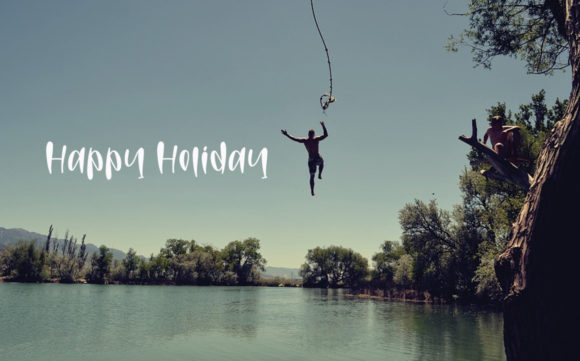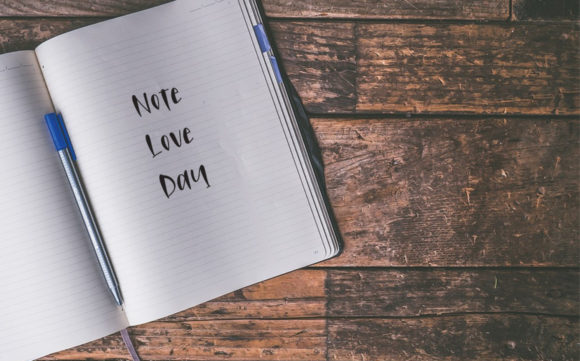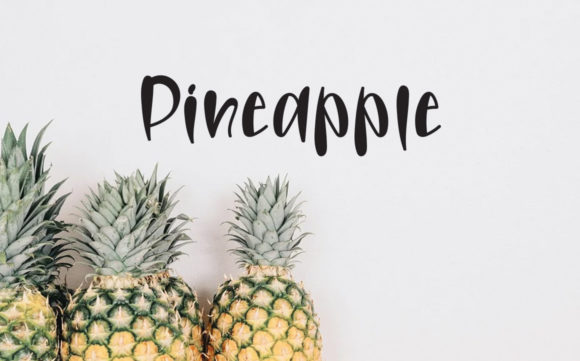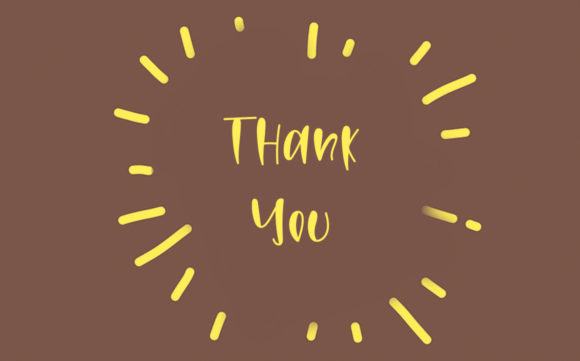
The Perfect Cup of Typography
Have you ever found yourself sipping on a warm cup of coffee, surrounded by the cozy atmosphere of a bustling café, and suddenly, inspiration strikes? The world seems to slow down, and your creative juices start flowing. For many designers, this is the moment when ideas come to life, and a new project takes shape. And, let’s be honest, a beautiful font can be the perfect accompaniment to a great cup of coffee.
Enter the Coffee Shop Font, a chic and friendly handwritten font that’s designed to add a touch of elegance and whimsy to your designs. Crafted with care, this font is perfect for those who need a beautiful and refreshing look to their projects. Whether you’re working on a branding project, a social media campaign, or a simple invitation, the Coffee Shop Font is sure to bring a smile to your clients’ faces.
Coffee Shop Font Key Features
- Font Family: Coffee Shop Font is a sans-serif font family designed for use in coffee shops, restaurants, and other casual dining establishments.
- Character Set: The font family includes a comprehensive character set, including Latin, Greek, and Cyrillic alphabets, as well as punctuation and symbols.
- Unique Characteristics: The font features a warm and inviting tone, with subtle rounded edges and a friendly feel, making it perfect for casual dining establishments.
Coffee Shop Font Review
I was excited to dive into the Coffee Shop Font, with its promise of warm, inviting vibes perfect for any coffee shop or cafe. And overall, I’d say it delivers. Here’s what works well:
- ✨ Unique, handwritten feel that adds character to any design
- ✨ Perfect for creating a cozy, welcoming atmosphere
- ✨ Great for titles and headings, especially when used in combination with a serif font
- ⚠️ Limited flexibility – it’s not ideal for large blocks of text
- ⚠️ May not be suitable for modern or minimalist designs
- ⚠️ Some characters can be quite ornate, which may not be ideal for small font sizes
Overall, I think the Coffee Shop Font is a great choice for designers looking to add a touch of warmth and personality to their projects. Just be mindful of its limitations and use it thoughtfully to get the most out of it.
Tip: Use the Coffee Shop Font in combination with a warm color palette and distressed textures to create a cozy atmosphere reminiscent of a coffee shop.
Tip: Use the Coffee Shop Font in conjunction with a subtle gradient or texture to add depth and visual interest to your design.
Tip: Use the Coffee Shop Font in combination with a clean and simple layout to create a professional-looking presentation or document.
The Coffee Shop Font is ideal for designs that require a warm and inviting atmosphere, such as:
– Coffee shop branding and marketing materials
– Restaurant and cafe menus
– Blog and website headers